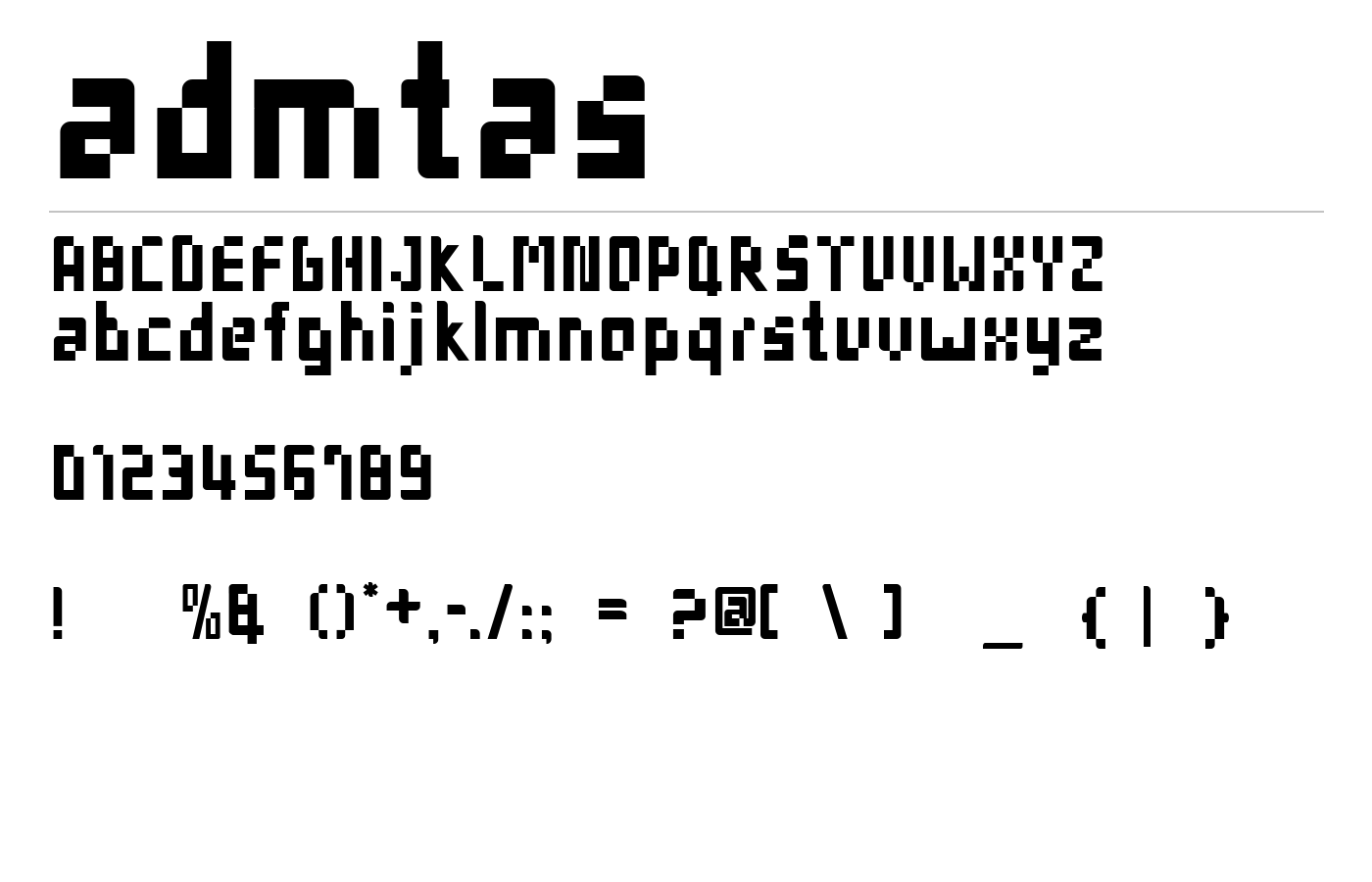
Admtas is a bold, condensed sans serif font with a strong geometric and blocky design that gives it a digital, tech-inspired feel. Its consistent stroke weight and sharp edges make it ideal for eye-catching headlines, logos, and futuristic branding where a modern, robust look is desired. This font works best in contexts requiring a striking, tech-savvy impression and minimalistic yet impactful letterforms.
admtas Font
About admtas Font
| Font family | admtas Font |
| Designer | admtas |